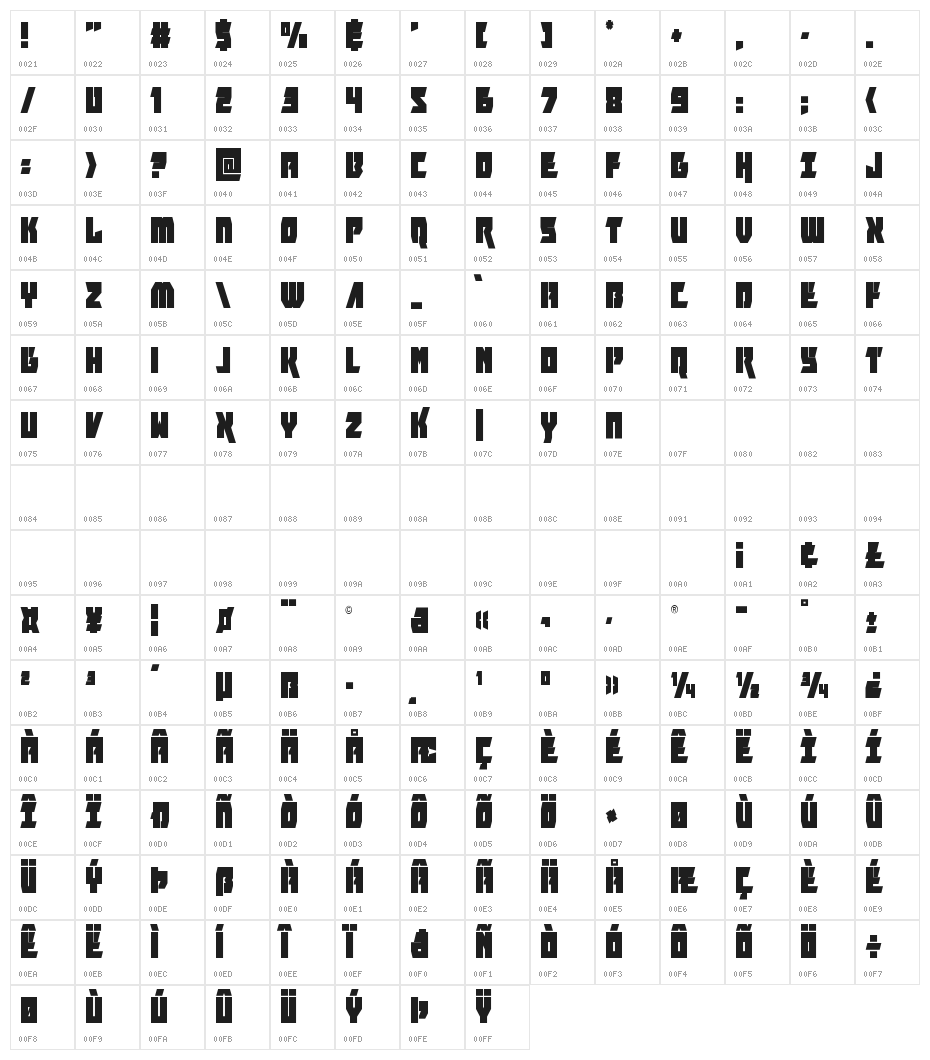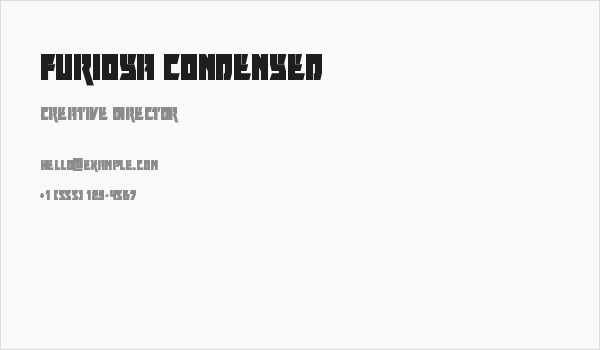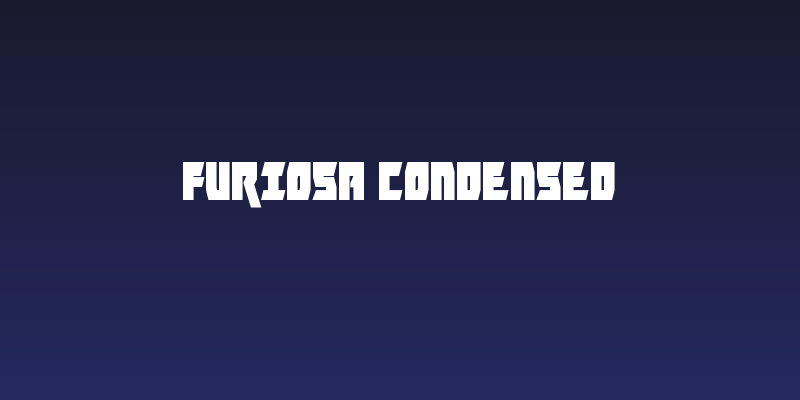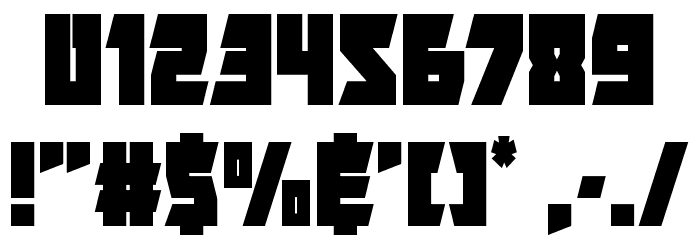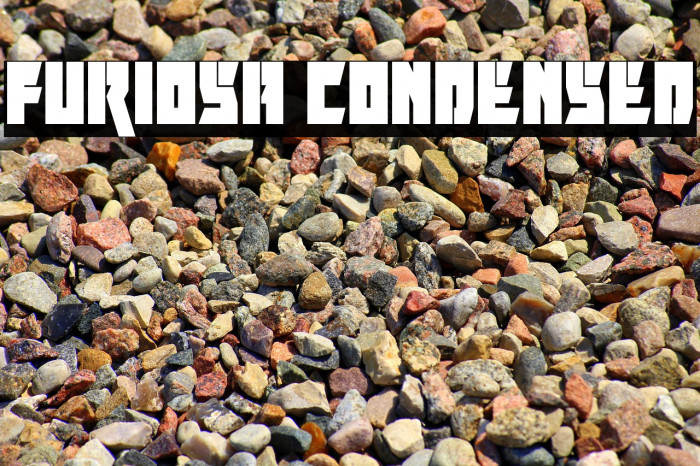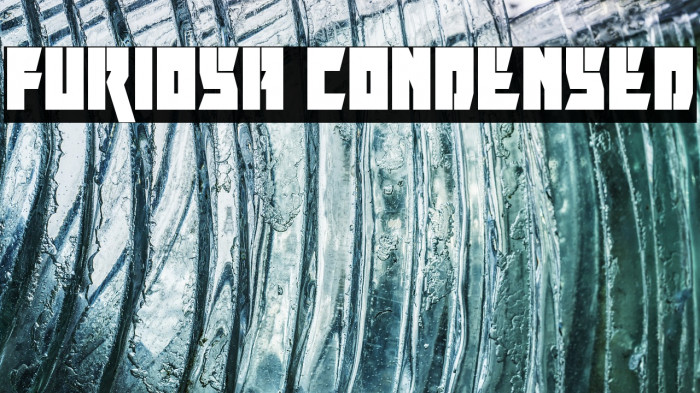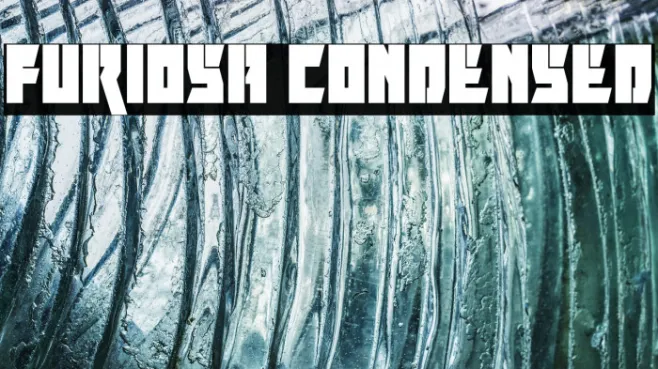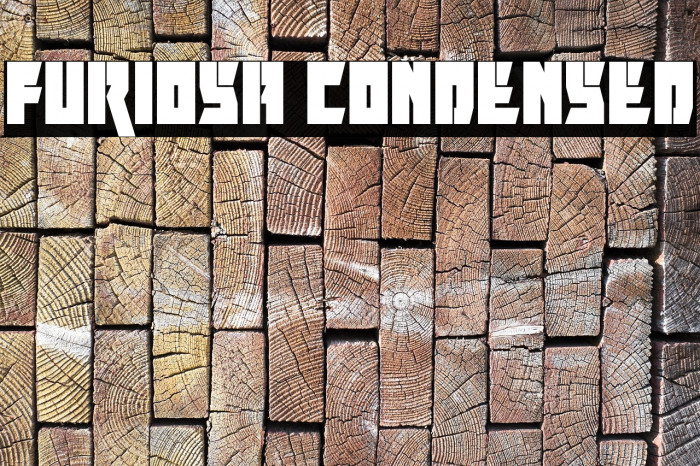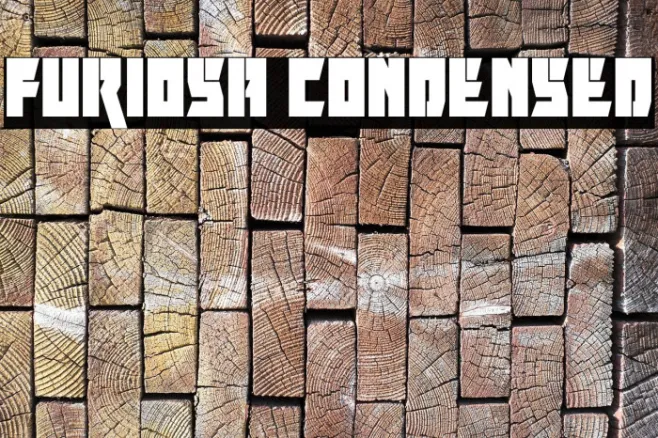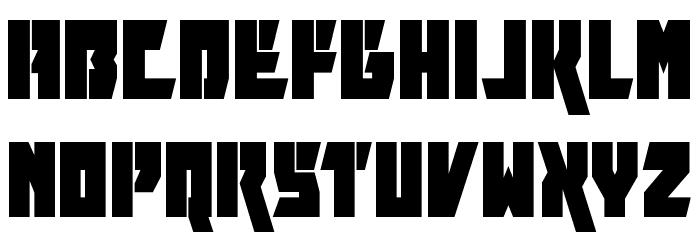
Furiosa Condensed Font
Furiosa Condensed Description
This font features a bold and striking design with sharp, angular edges and a condensed structure. The uppercase and lowercase letters share a consistent geometric style, creating a cohesive and impactful appearance. The numbers and special characters maintain this bold aesthetic, making them stand out prominently. The overall design is modern and edgy, suitable for projects that require a strong visual impact. The condensed width allows for efficient use of space, making it ideal for headlines or titles where space is limited.
FURIOSA-CONDENSED UPPERCASE
FURIOSA-CONDENSED LOWERCASE
FURIOSA-CONDENSED OTHER CHARS
| Proposed Projects | This font is perfect for poster designs, branding projects, video game titles, and any creative work that demands attention and a modern aesthetic. |